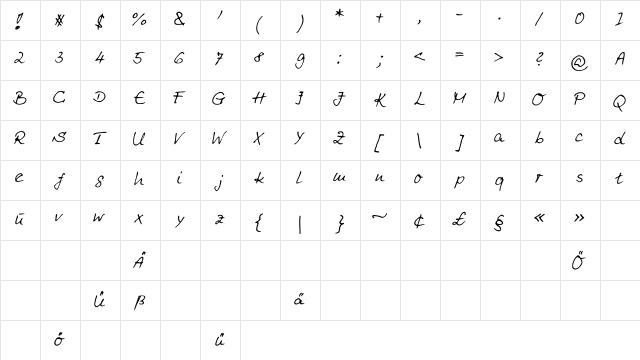
IngoFontduenn Medium Font Preview
IngoFontduenn Medium
IngoFontduenn Medium Font Details
Design Context for IngoFontduenn Typeface
IngoFontduenn offers clean, dependable letterforms without strong stylistic allegiance, making it a practical choice for designers who need flexibility.